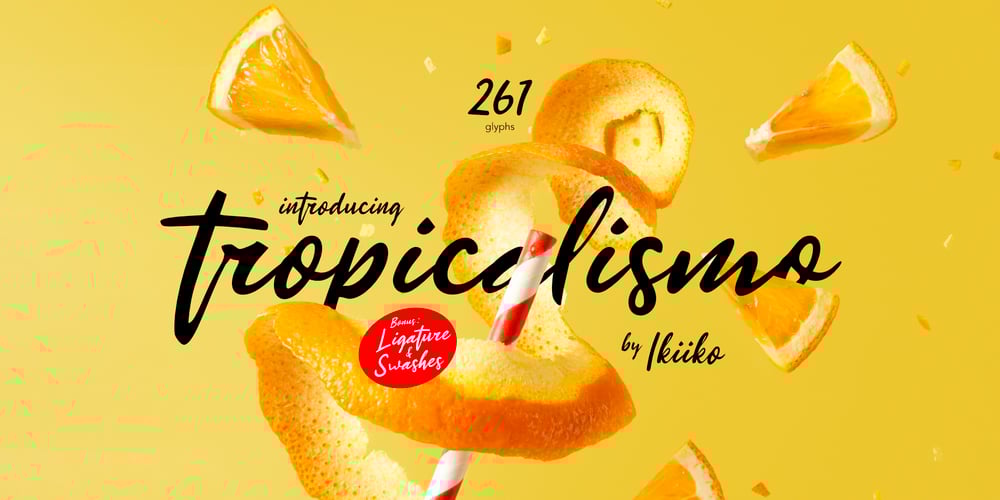
Tropicalismo Font Family was designed by Wahyu Eka Prasetya, Andhika Pradana and published by IKIIKOWRK. Tropicalismo contains 1 styles and family package options. Introducing Tropicalismo Typeface, created by ikiiko.A festive handwriting typeface with holiday vibes, fun and joy. You will feel the freshness and pleasure in expression. This typeface is perfect for an holiday season stuff like poster, flyer, or email blast. And also good for beauty product, packaging product, quotes, or simply as a stylish text overlay to any background image.What’s included? Uppercase & Lowercase Number & Punctuation Ligatures & Swashes Multilingual Support Get also a good offer & FREEBIE at our site : www.ikiiko.comEnjoy our font and if you have any questions, you can contact us by email : ikiikowrk@gmail.com